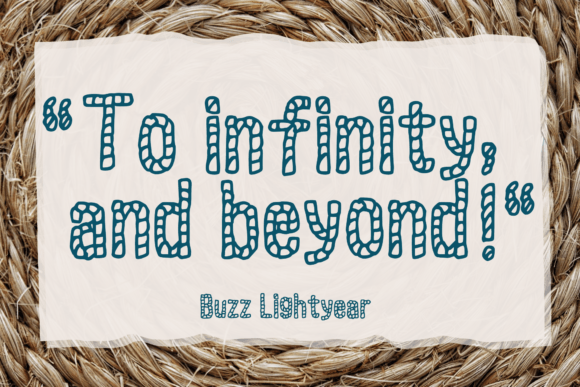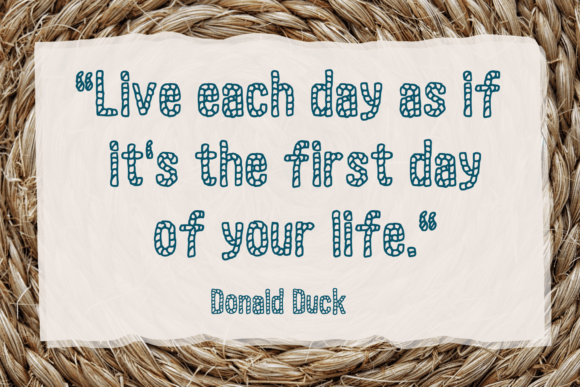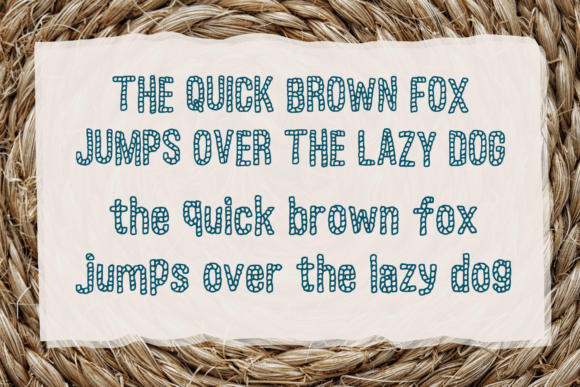
Introduction to Sans Rope Font
Sans Rope is a unique handwritten decorative rope font.
You can use it for anything ranging from greeting cards to stickers and posters, or anything that needs a casual touch Fall in love with its incredibly versatile style and use it to create lovely designs.
Key Features of Sans Rope Font
Why Choose Sans Rope Font?
Sans Rope Font offers exceptional quality and versatility, making it a valuable addition to your design toolkit. Whether you’re creating for personal projects or commercial use, Sans Rope Font delivers professional results.